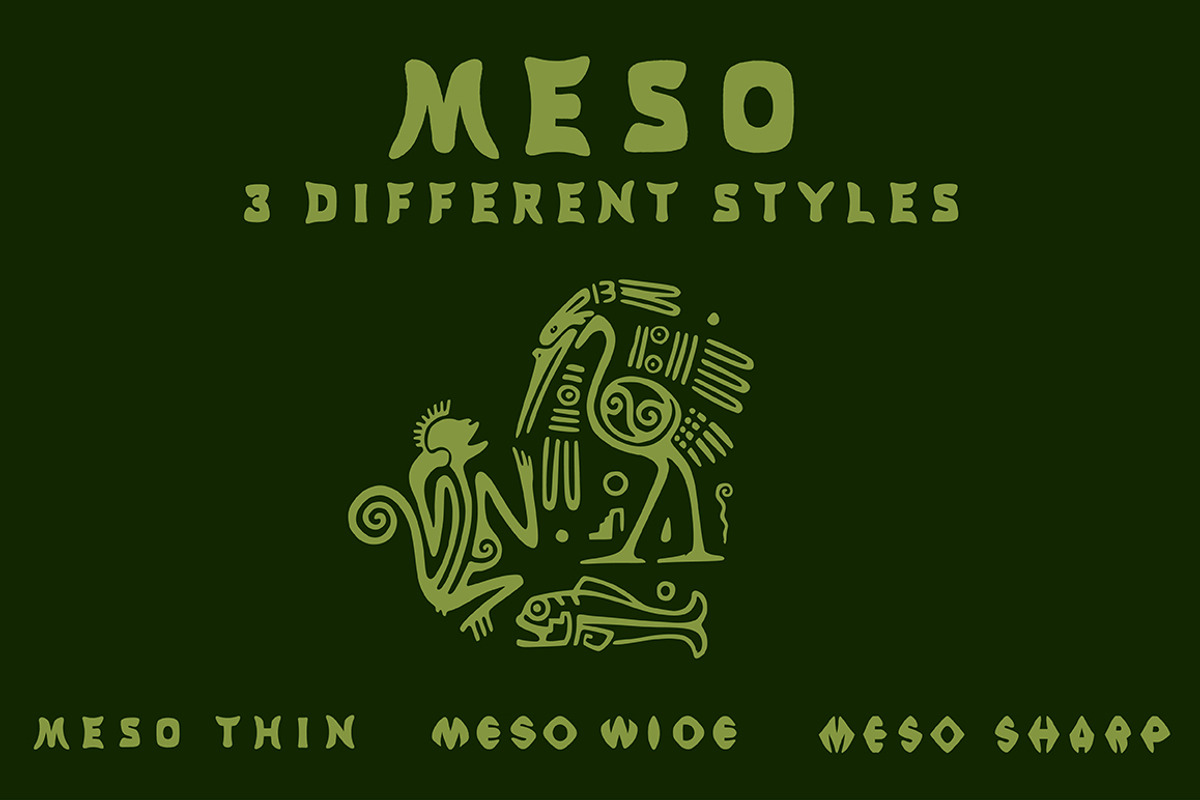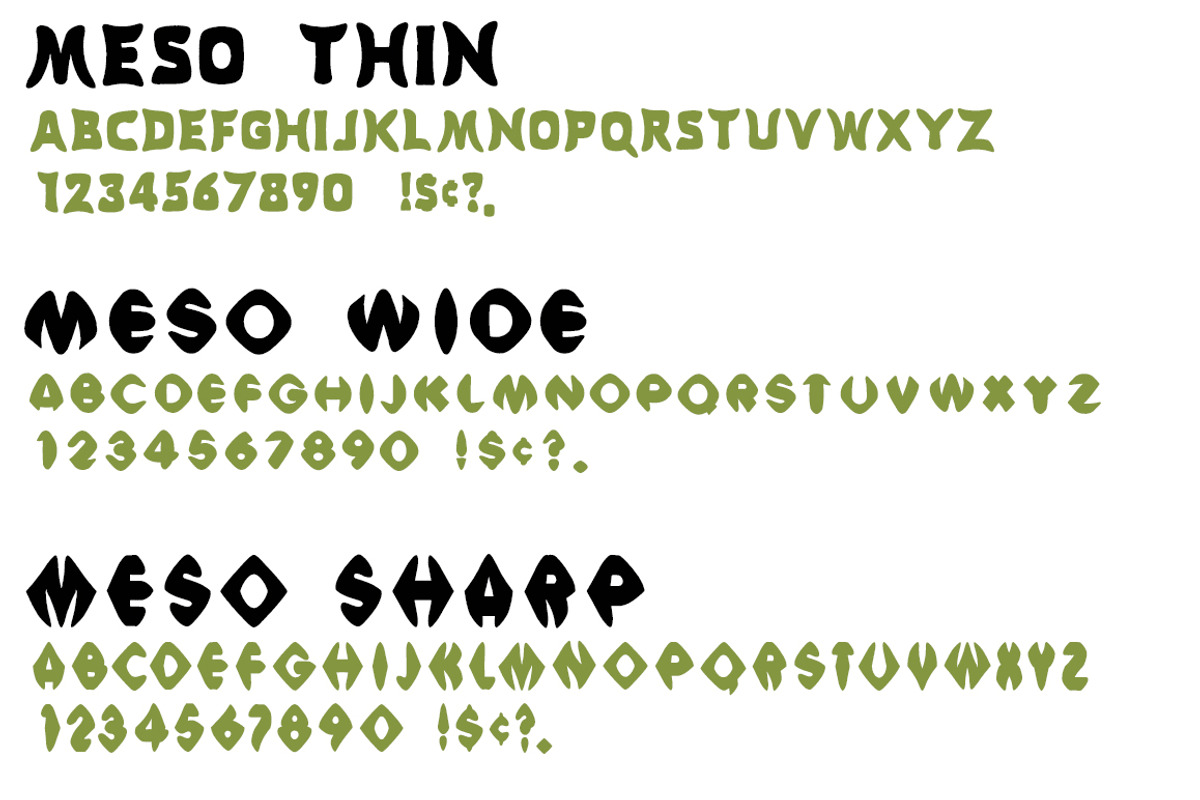
Meso - 3 Font Styles
Meso - 3 Font Styles by Blue Line Design is a font selected for branding, posters, packaging, typography.
- Meso Wide Regular
- Meso Sharp Regular
- Meso Thin Regular
Meso - 3 Font Styles by Blue Line Design fits naturally into Branding, posters, packaging, typography.